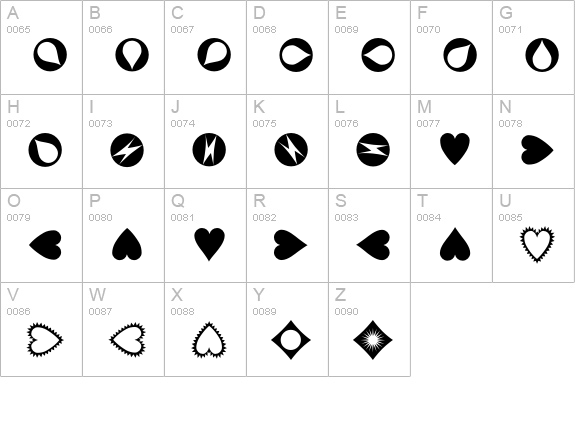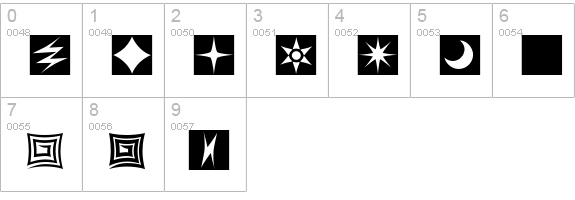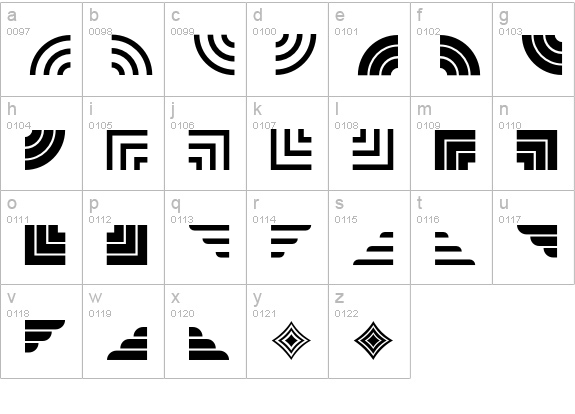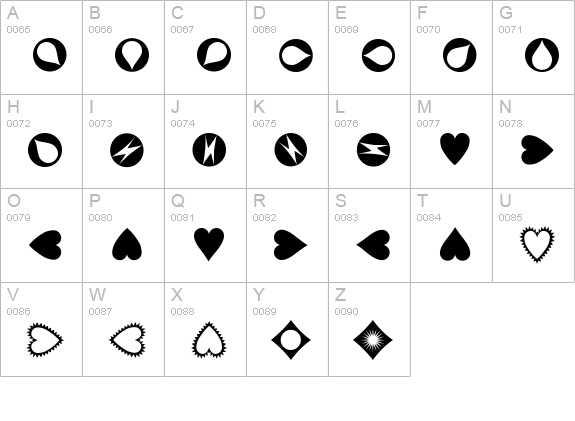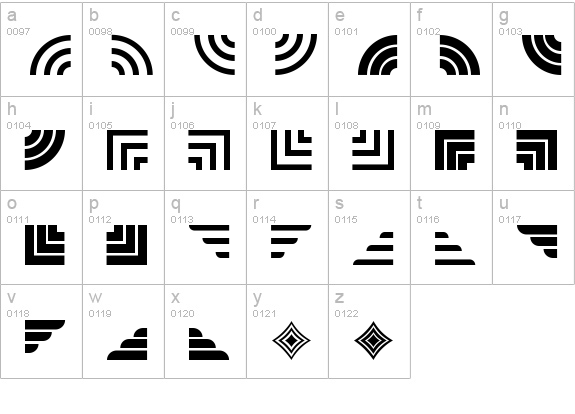
AltemusBordersThree Font Details
AltemusBordersThree font is a charming and versatile typeface that adds a touch of elegance to any design. With its intricate border elements and delicate lines, this font is perfect for creating invitations, greeting cards, and other creative projects. The ornate details of AltemusBordersThree font make it stand out and give a sophisticated feel to your designs. Best of all, AltemusBordersThree font is available for free download at FontsMarket.com. You can easily access this stunning font and add it to your collection without any cost. Whether you're a seasoned designer or just starting out, AltemusBordersThree font is a great addition to your toolkit. Don't miss out on the opportunity to enhance your projects with this beautiful and unique font. Download it today and let your creativity shine!